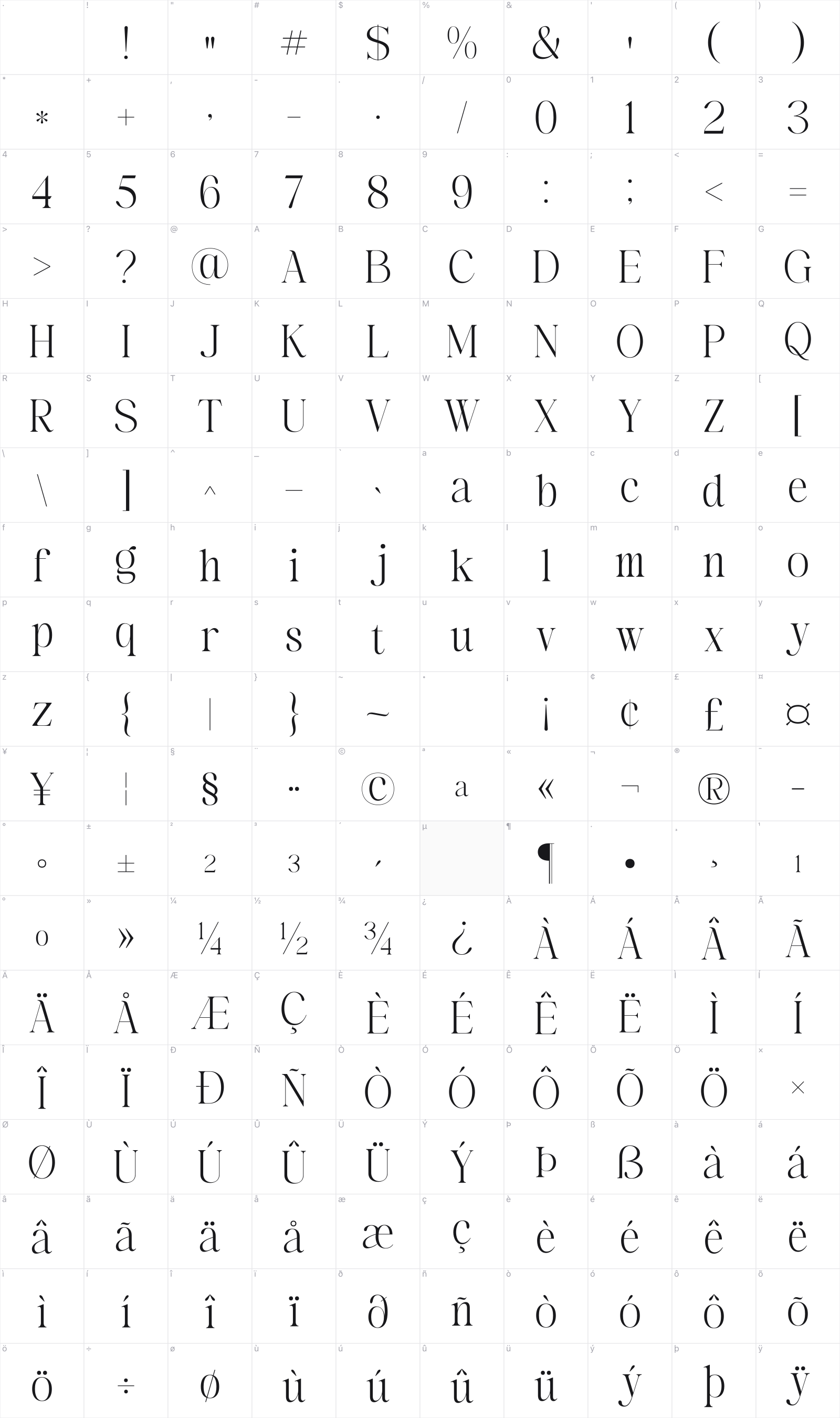
Viagram
Viagram is a high-contrast modern serif with the extreme thick-thin stroke contrast of the Didone tradition. Hairline serifs and delicate terminals give it a refined, fashion-forward sensibility that works beautifully at large display sizes. It carries the editorial weight of a magazine masthead without feeling stiff.